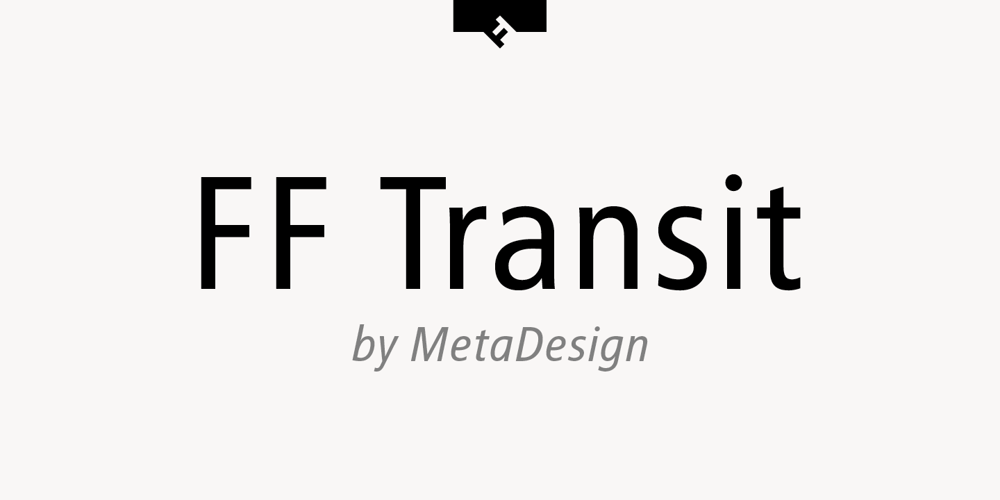
FF Transit Font Family was designed by MetaDesign and published by FontFont. FF Transit contains 18 styles and family package options. German design agency MetaDesign created this sans FontFont in 1997. The family has 18 weights, ranging from Regular to Black (including italics) and is ideally suited for advertising and packaging, editorial and publishing, logo, branding and creative industries, small text as well as wayfinding and signage. FF Transit provides advanced typographical support with features such as ligatures, alternate characters, case-sensitive forms, fractions, super- and subscript characters, and stylistic alternates. It comes with a complete range of figure set options – oldstyle and lining figures, each in tabular and proportional widths.